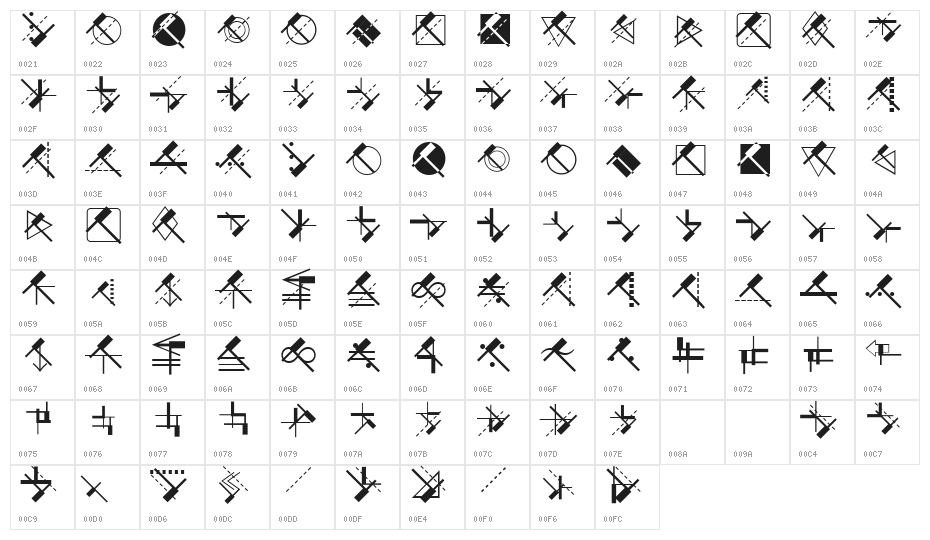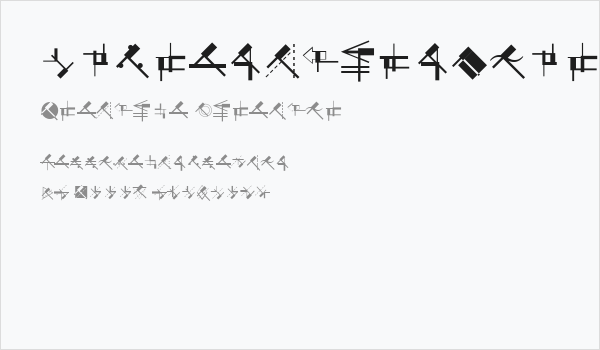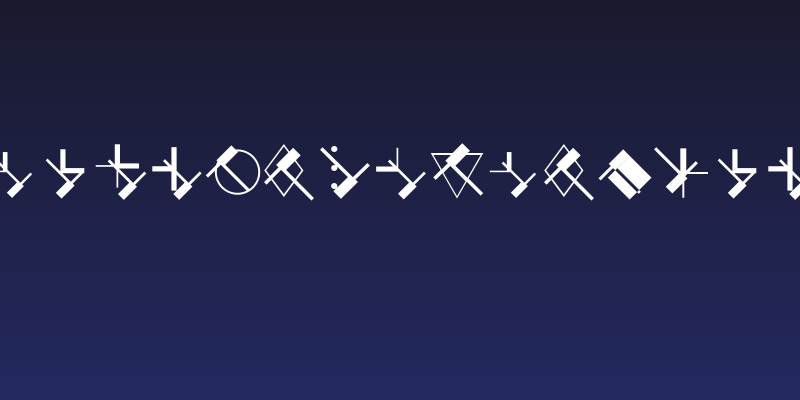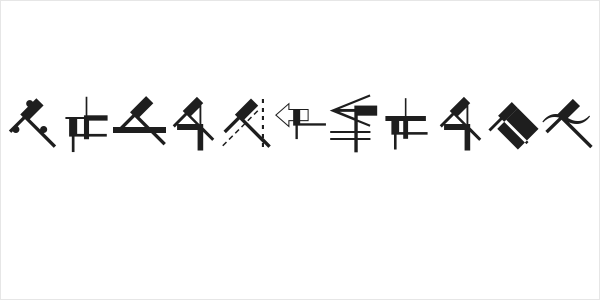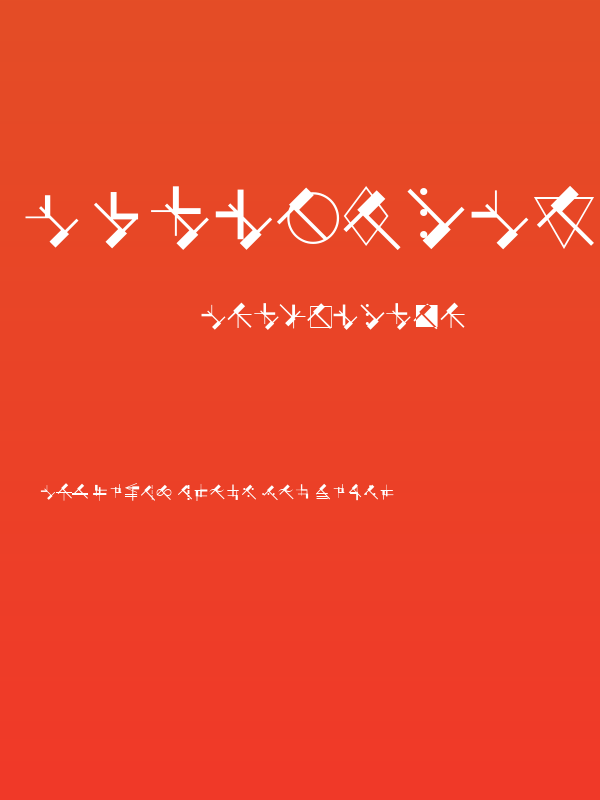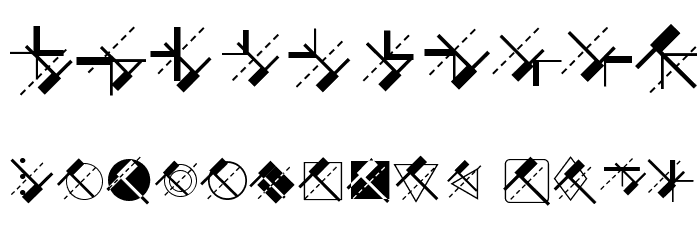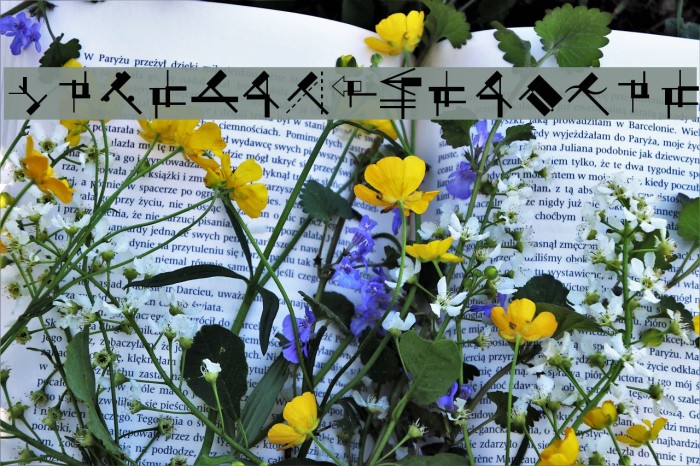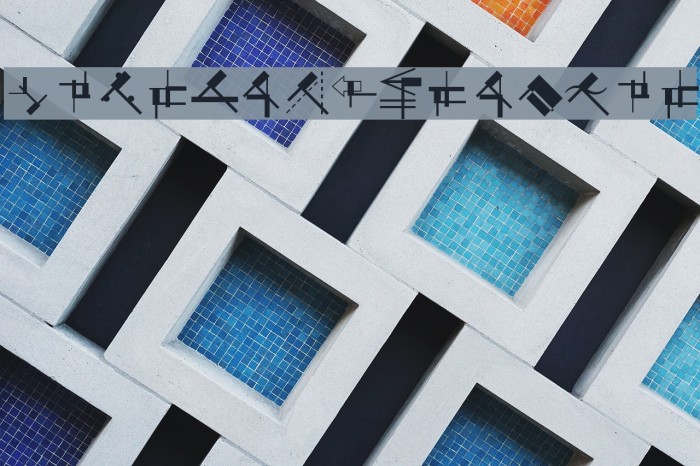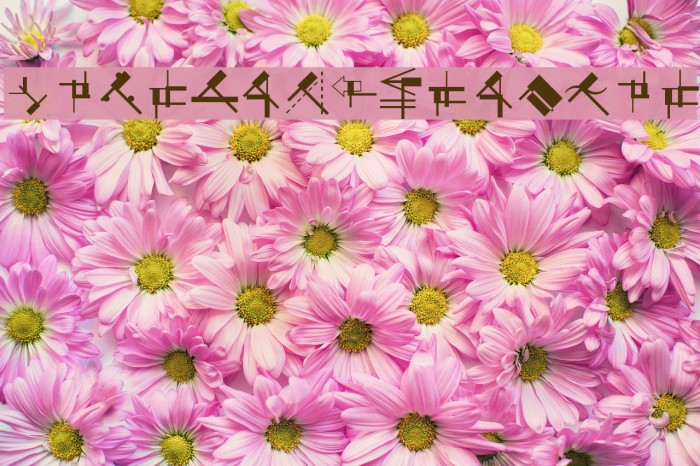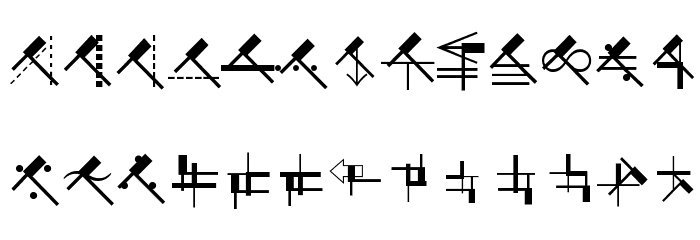
SuprematismFour Font
SuprematismFour Description
This font is a striking example of geometric abstraction, drawing inspiration from the Suprematism art movement. Each character is composed of bold, intersecting lines and shapes, including circles, squares, and triangles, creating a dynamic and avant-garde appearance. The design is highly abstract, with a focus on form and structure rather than traditional readability. The characters are unique and artistic, making them more suitable for decorative purposes rather than practical text. The use of solid black shapes against white space enhances the visual impact, making it a bold choice for artistic projects.
| Overall Style | Modern, Abstract |
| Use Case | Logos, Art projects, Decorative elements |
| Proposed Projects | Ideal for art installations, modern posters, avant-garde branding, and experimental design projects. |